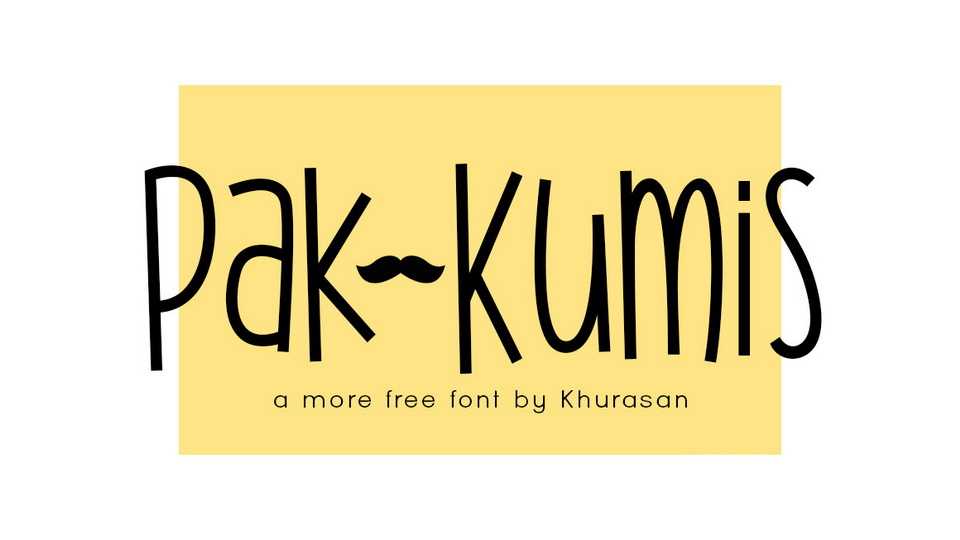
Download Pak Kumis font, a funny and playful display typeface. Pak Kumis is perfect for posters, logos, magazines, cover books, banners, and much more.